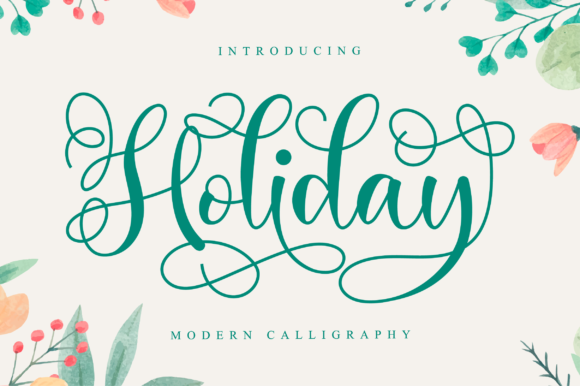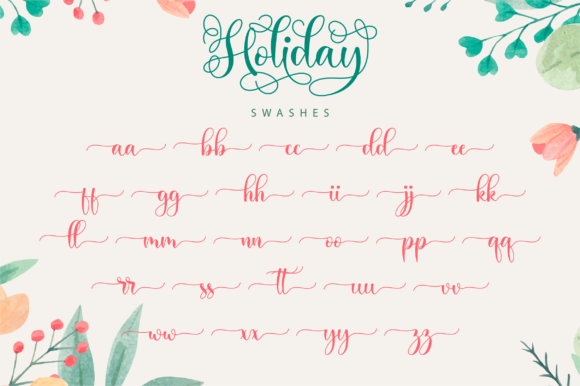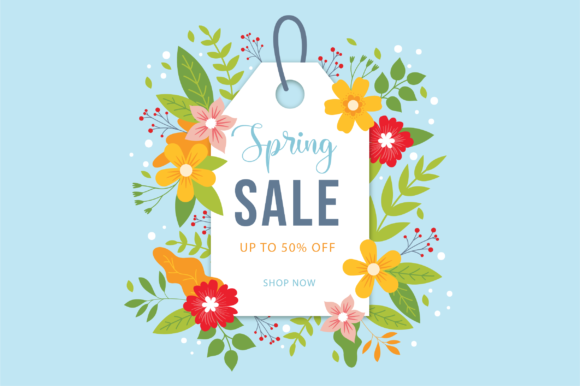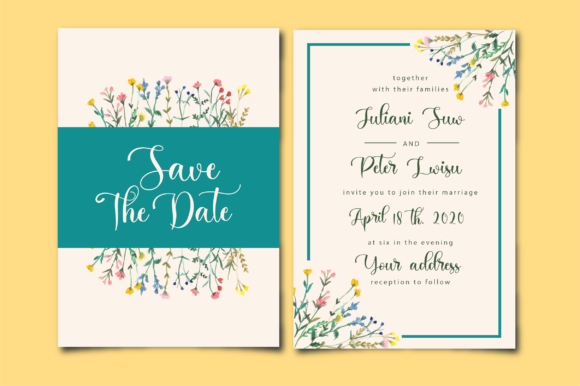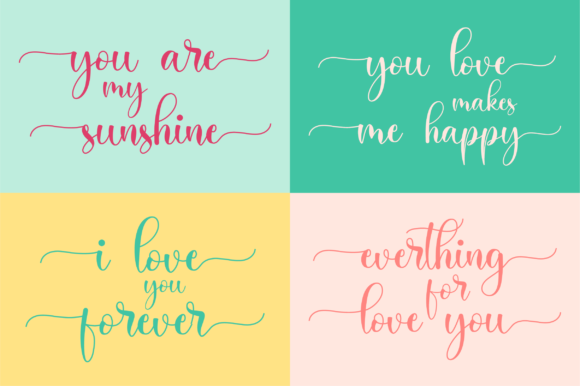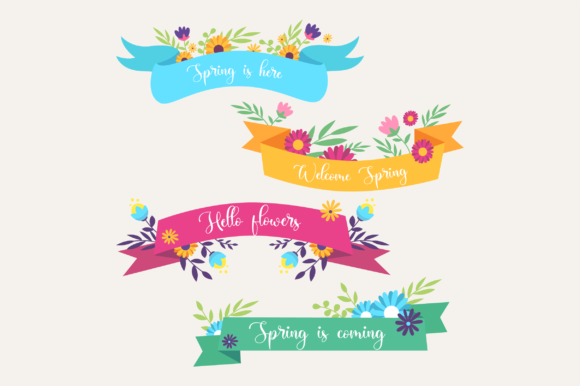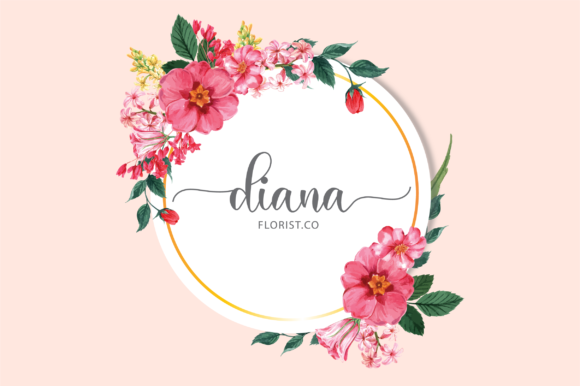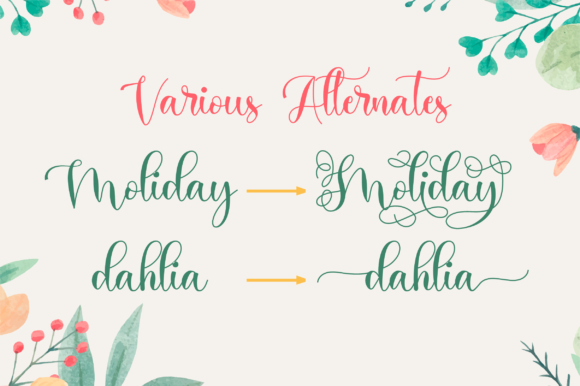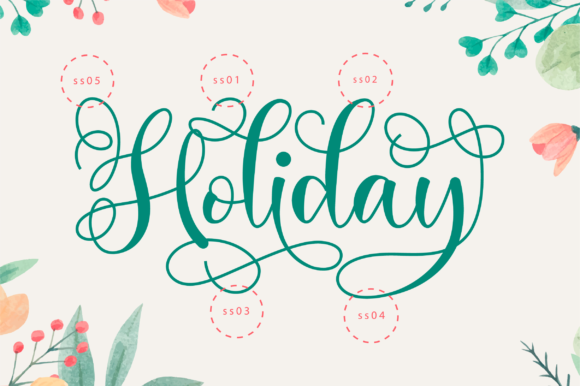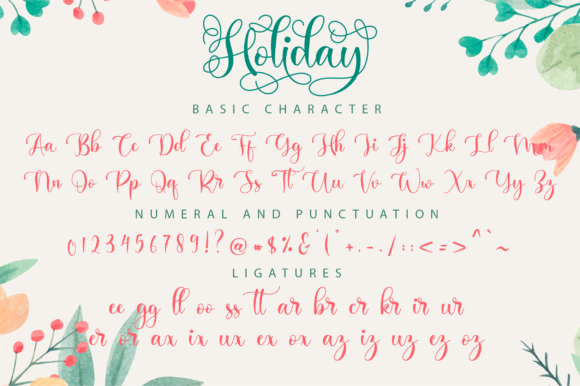
Holiday Font
About Holiday Font
Holiday is a beautiful and elegant script font. Fall in love with its authentic feel and use it to create gorgeous wedding invitations, beautiful stationary art, eye-catching social media posts, and cute greeting cards.